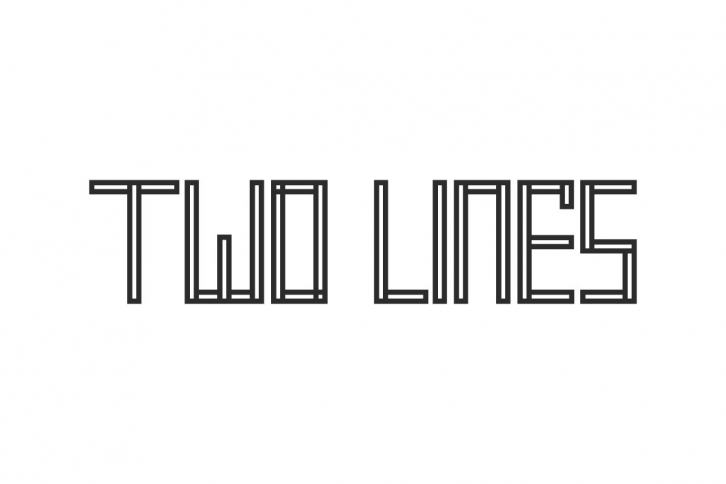
two lines is a trendy and unique font with an authentic style. It was designed by NihStudio and it's a great choice for creative people who need such a font. It was released on August 30, 2021 and the file size is 16.75 MB. two lines will add an organic vibe to any design idea!